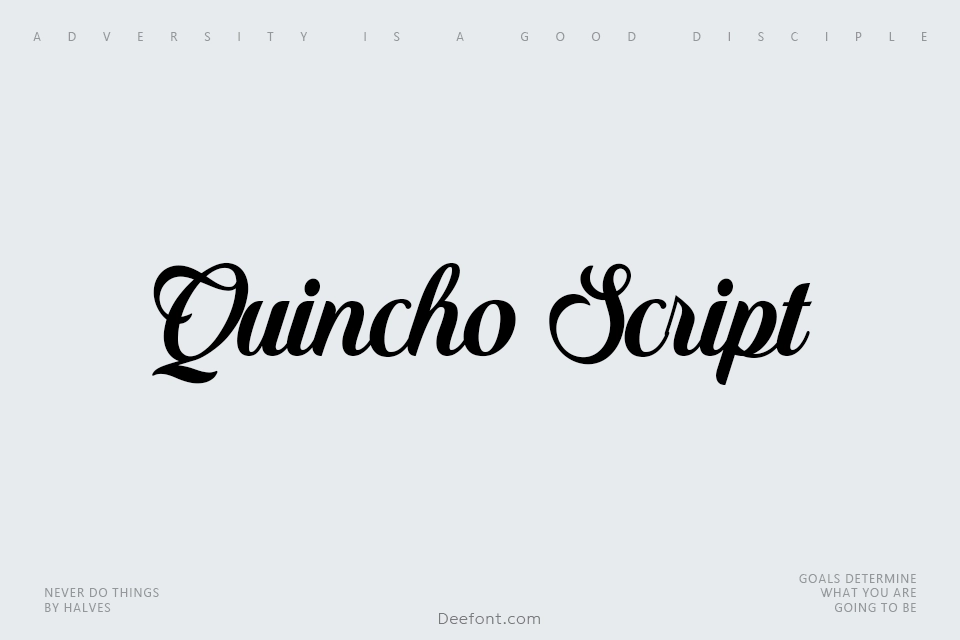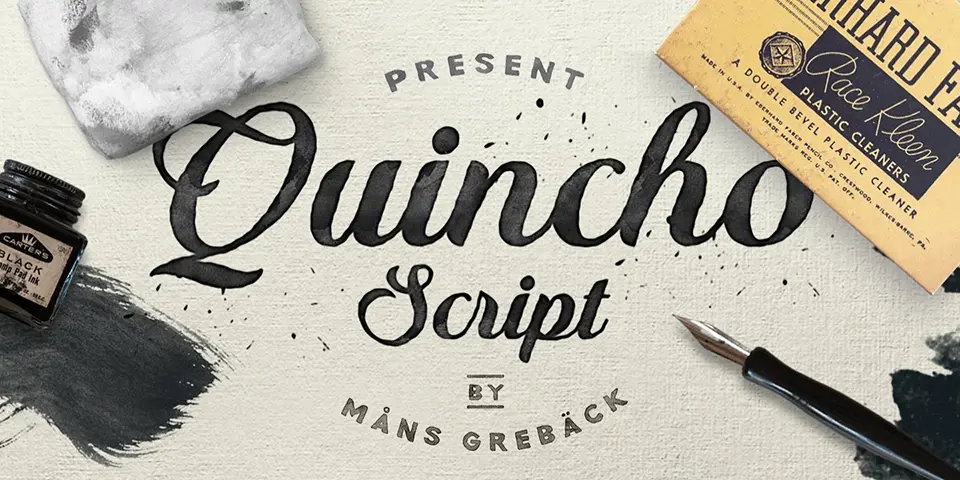
Quincho Script Font
Quincho Script is a sophisticated calligraphic font designed with bold, graceful characteristics. This script typeface offers an elegant appearance ideal for branding, logos, wedding invitations, and creative designs. With its clean construction and flourishing letterforms, Quincho Script brings formal elegance to any typography project, featuring over 390 glyphs for comprehensive character support.